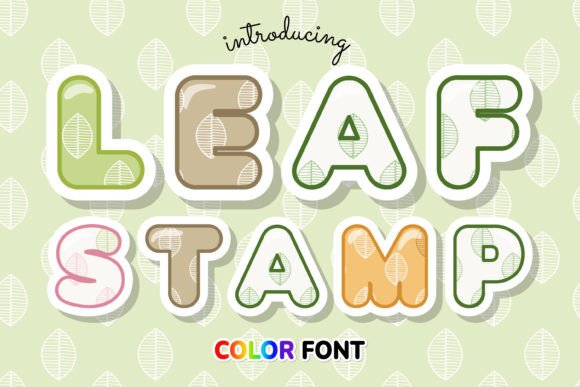
Step into a world of enchanting creativity with Leaf Stamp Font – a remarkable color font that captures the essence of nature's tapestry. Inspired by the intricate patterns of foliage, this font family brings a touch of the outdoors to your digital creations.
With its vibrant colors and captivating design, Leaf Stamp Font is the perfect choice for those seeking a unique and eye-catching aesthetic. Whether you're designing invitations for a tropical-themed party, creating personalized gifts for your loved ones, or simply adding a touch of whimsy to your everyday projects, this font will transform your words into captivating works of art.
Immerse yourself in the endless possibilities that Leaf Stamp Font offers. Its versatility knows no bounds, extending from custom designs and DIY crafts to any endeavor that calls for a splash of color and creativity. Let your imagination run wild as you explore the myriad ways to incorporate this font into your projects.